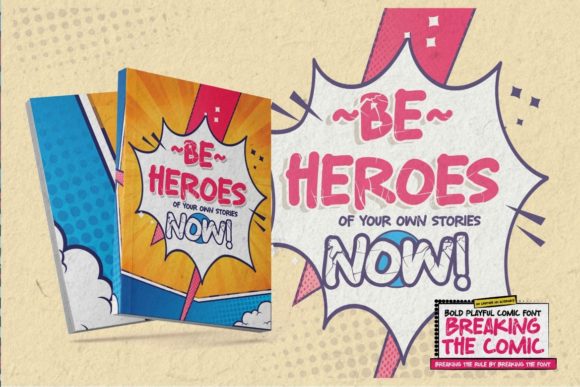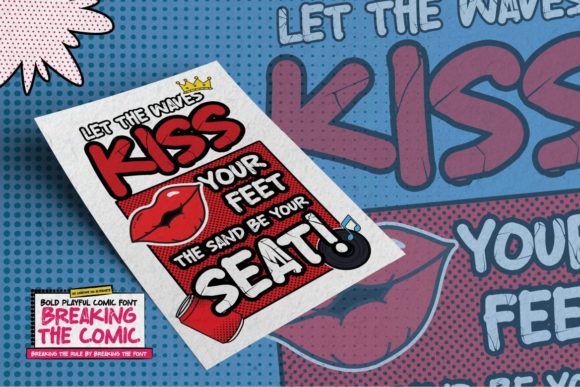
Breaking the Comic Font
Breaking the Comic Font is a cool and adaptable display font. This font is suitable for designs such as t-shirts, sportswear, posters, logos, advertisements, clothing, and more.
Breaking the Comic Font is a cool and adaptable display font. This font is suitable for designs such as t-shirts, sportswear, posters, logos, advertisements, clothing, and more. Whatever the topic, this font will be a great asset to your font collection, as it has the potential to enhance any creation.